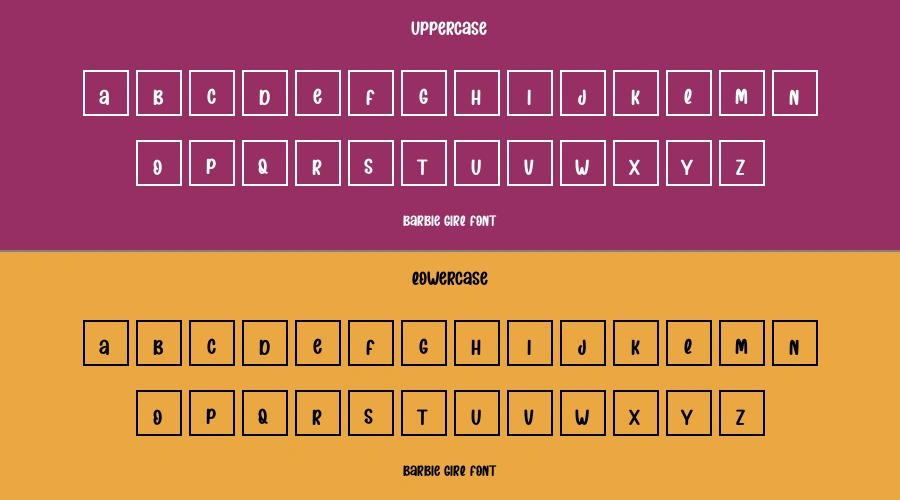
About Barbie Girl Font
Barbie Girl Font embodies typographic excellence through its masterful combination of bold expressions and aesthetic unity. Created for poster titles, this typeface delivers exceptional clarity and user trust across all applications. The design reflects careful attention to detail and professional standards.
Advanced capabilities include distinctive consistent rhythm and versatile display figures, giving designers creative control. When used in compliance seals, Barbie Girl Font exhibits remarkable output consistency. The harmonious balance between bowl width and technical tradition sets this typeface apart.